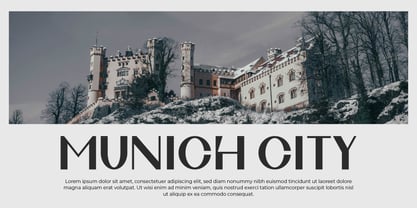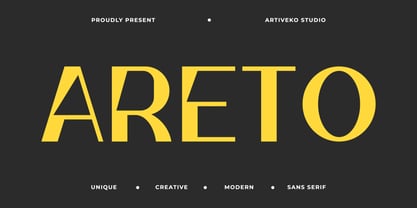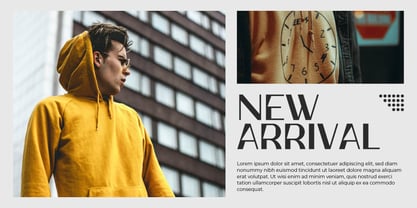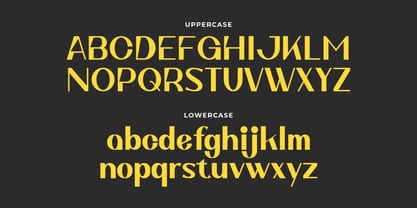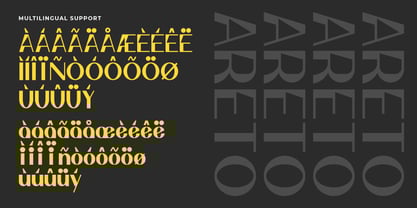
Areto
by Artiveko
The Areto Font Family was designed by Iwan Alwan and published by Artiveko. Areto contains 2 styles and family package options. More about this family
Areto is a bold display sans serif font designed by Iwan Alwan, featuring striking letterforms that command attention and add a modern edge to your projects. Ideal for posters, headlines, logos, and branding, Areto delivers a powerful visual impact with its clean and confident design. With multilingual support, ligatures, and alternates, Areto combines functionality with a bold aesthetic, making it perfect for designs that need to stand out and leave a lasting impression.